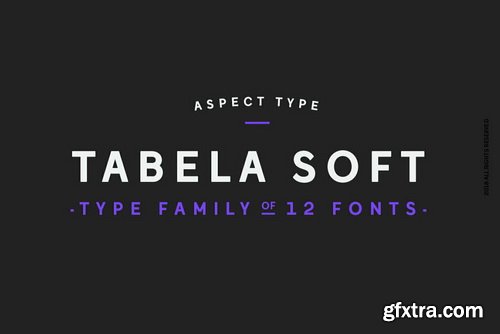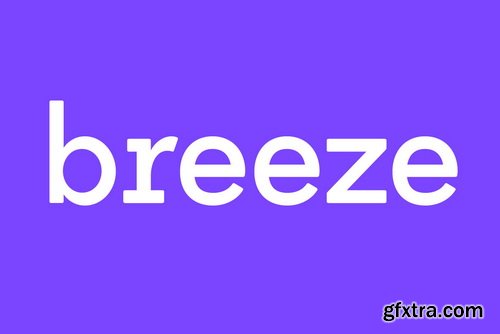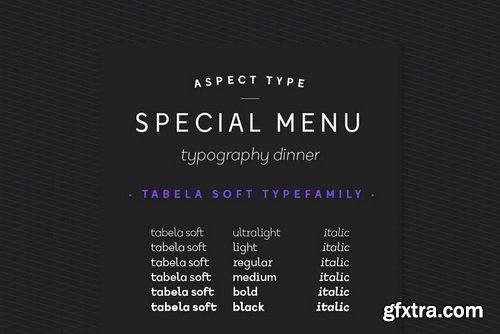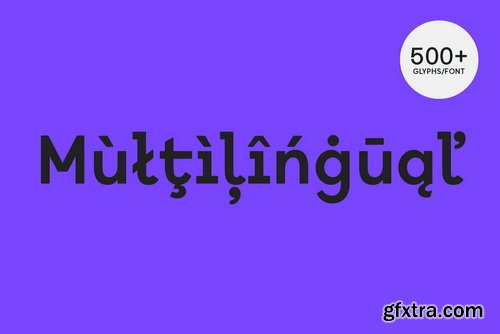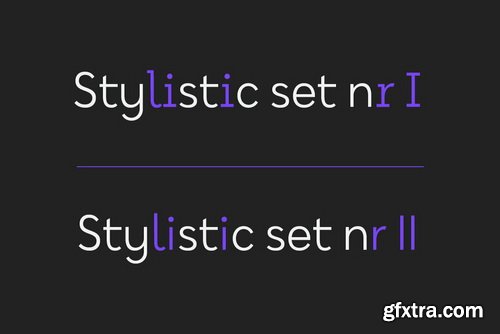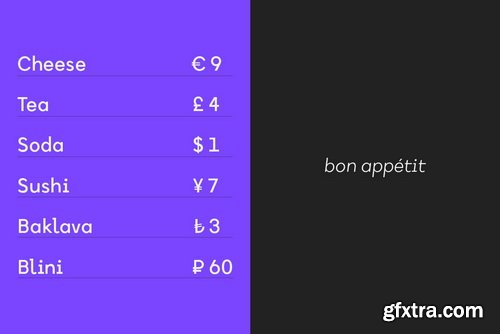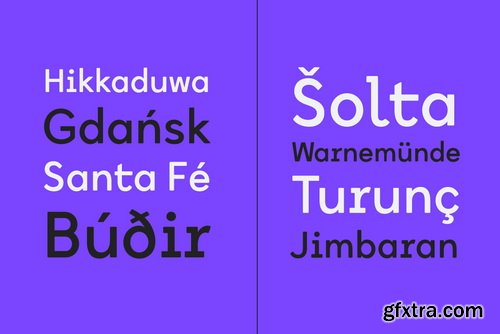
Tabela is a family of typefaces inspired by the aesthetics of monospaced fonts. Its design, based on the monospaced font, preserves its characteristic elements. Perfect for headlines, titles, and logotypes, it also has an alternative, more neutral stylistic variant for projects that do not require such distinctive lettering. Its wide array of diacritics allows it to be used in most European languages.